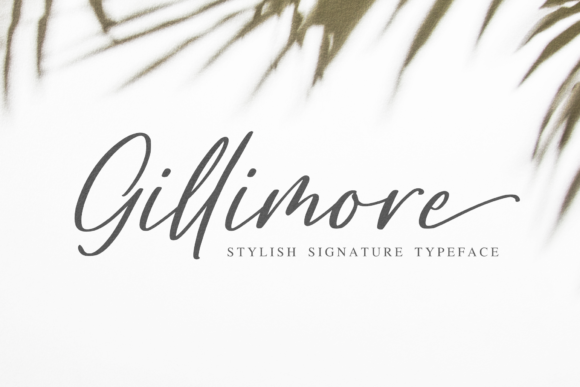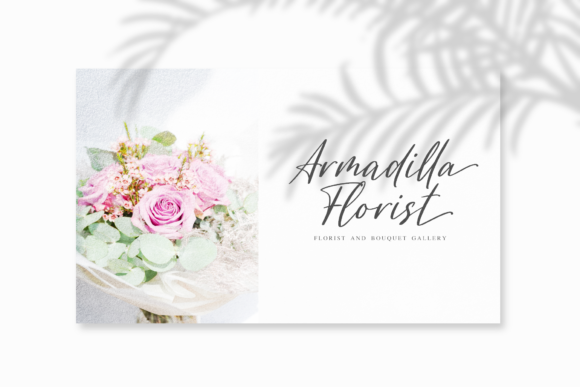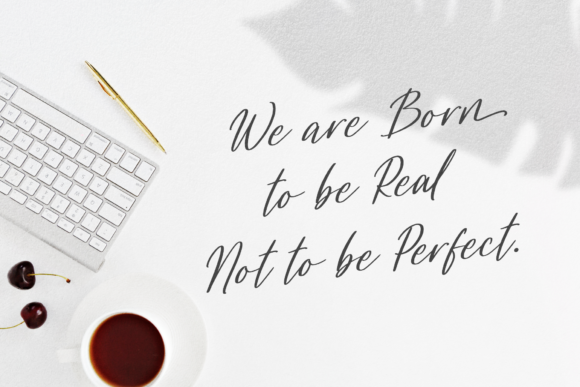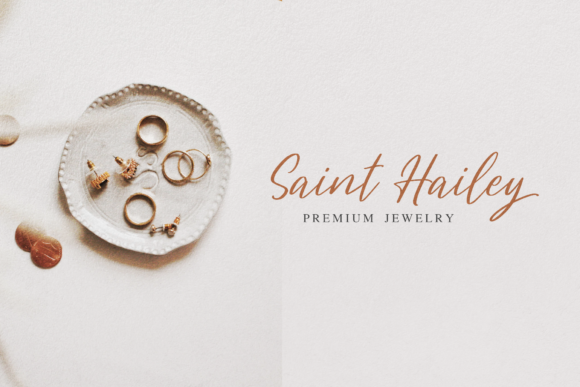
About Gillimore Font
Gillimore is a stylish handwritten font. It features gorgeous swashes and ligatures that make this script incredibly versatile. Whether you’re looking for fonts for Instagram or calligraphy scripts for DIY projects, Gillimore will turn any creative idea into a true piece of art!